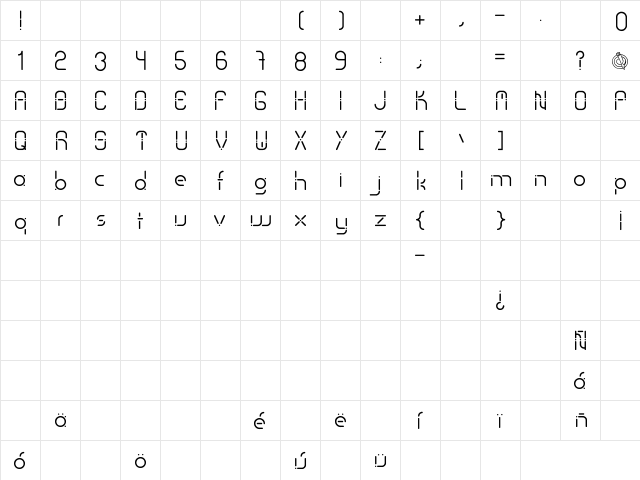
NewWGL4Font Regular
| Foundry | High-Logic |
| Designer | High-Logic - Erwin Denissen |
Design Context for NewWGL4Font Typeface
NewWGL4Font is a composed and adaptable typeface that performs quietly and consistently across a wide range of design contexts.